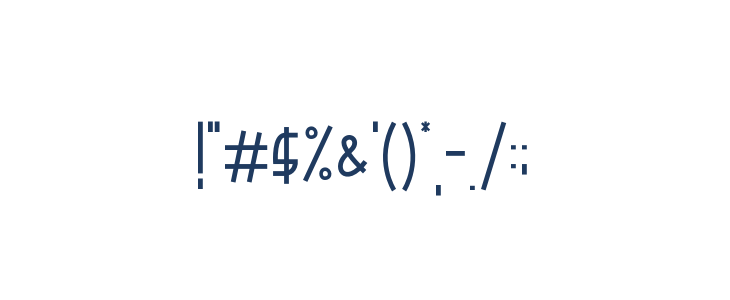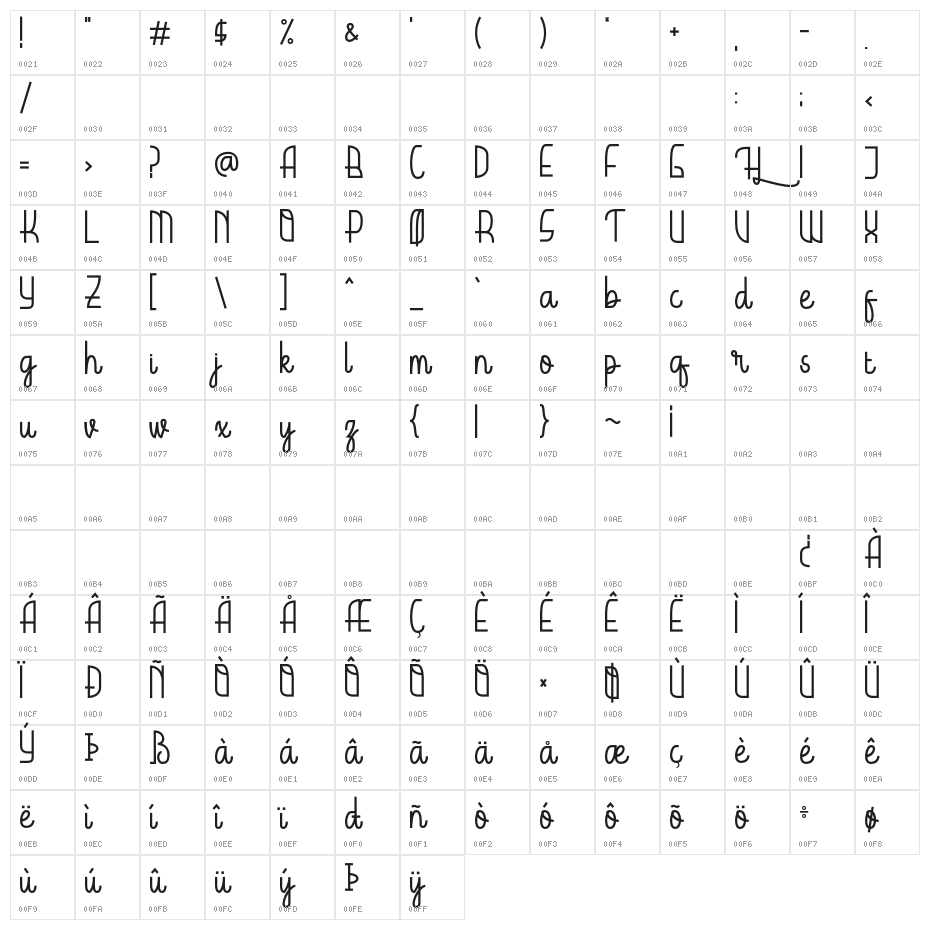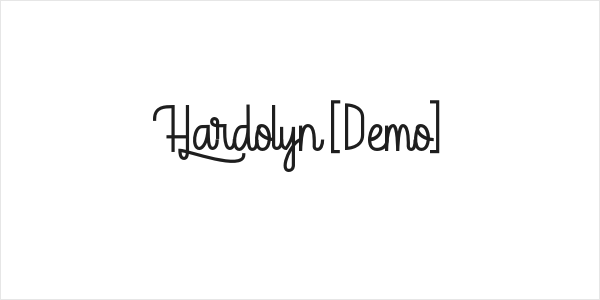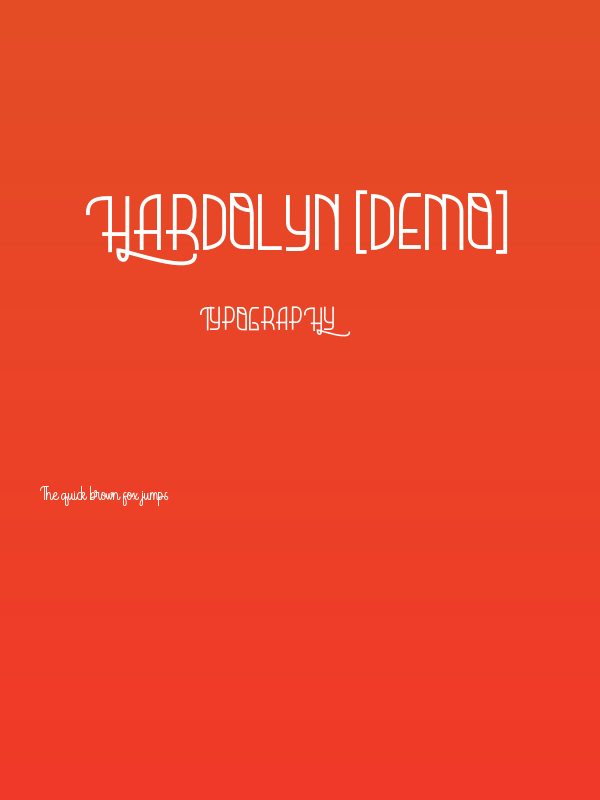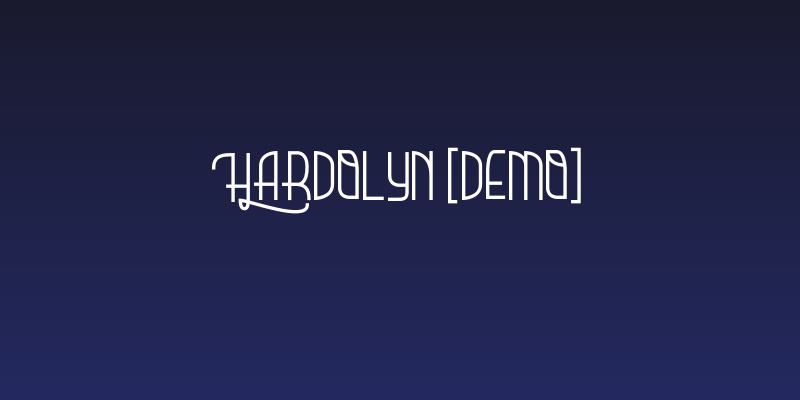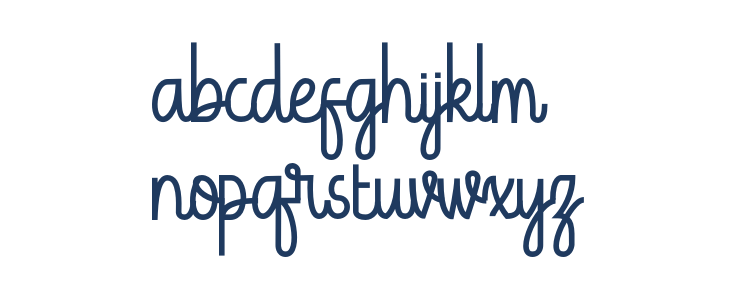
Hardolyn [Demo] Font
Hardolyn [Demo] Description
This font features a unique blend of geometric and cursive elements, creating a distinctive and modern appearance. The uppercase letters are characterized by their tall, narrow forms with sharp angles and clean lines, giving them a futuristic and architectural feel. In contrast, the lowercase letters are more fluid and connected, resembling a cursive style that adds a touch of elegance and playfulness. The numbers and special characters maintain the geometric theme, ensuring consistency across the font. This combination of styles makes it versatile for various design applications.
| Proposed Projects | Ideal for branding, logos, posters, and modern web design projects. |